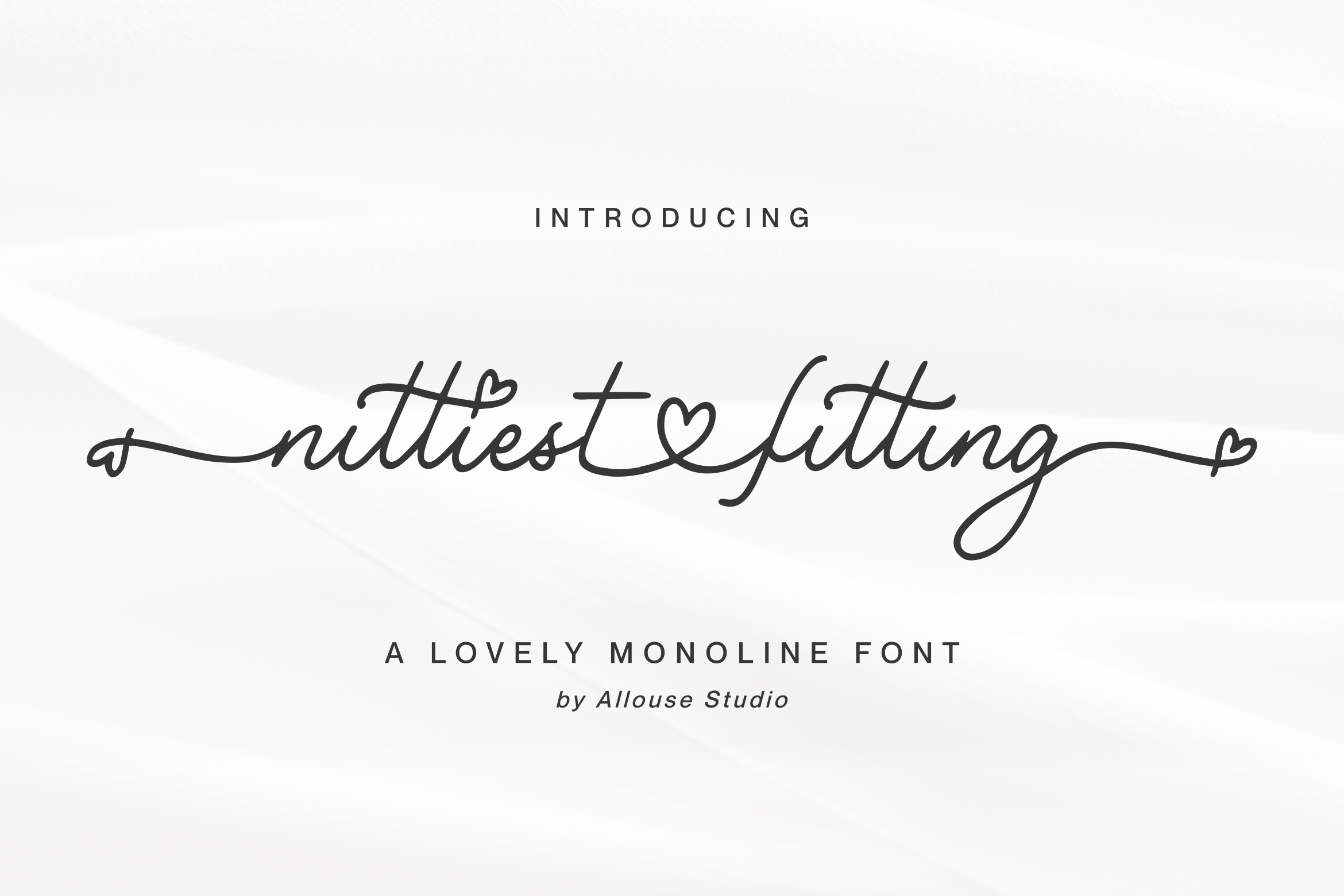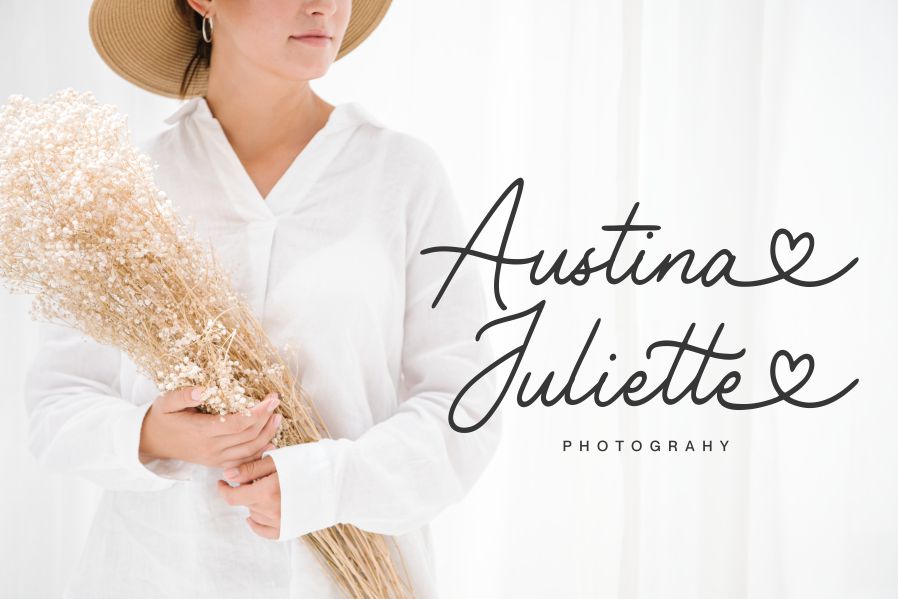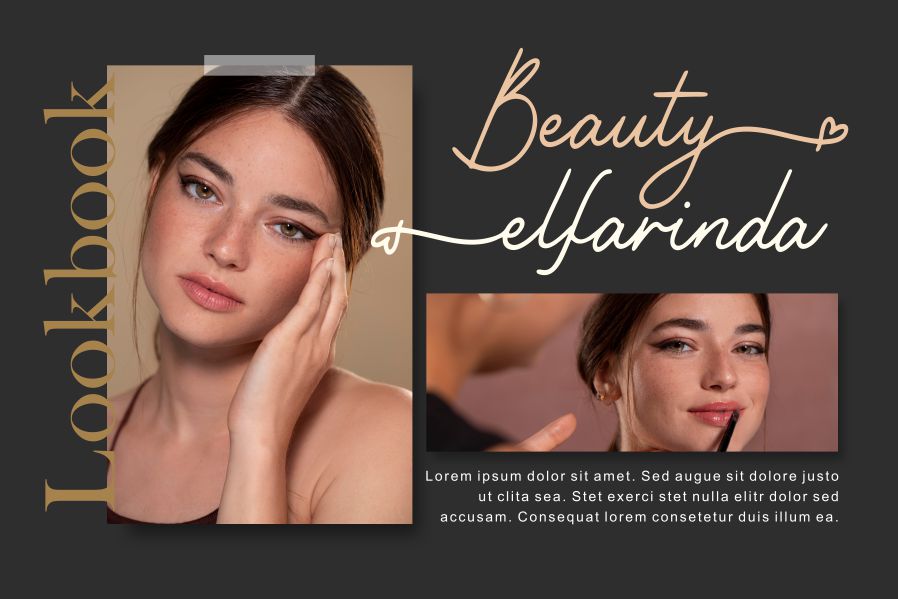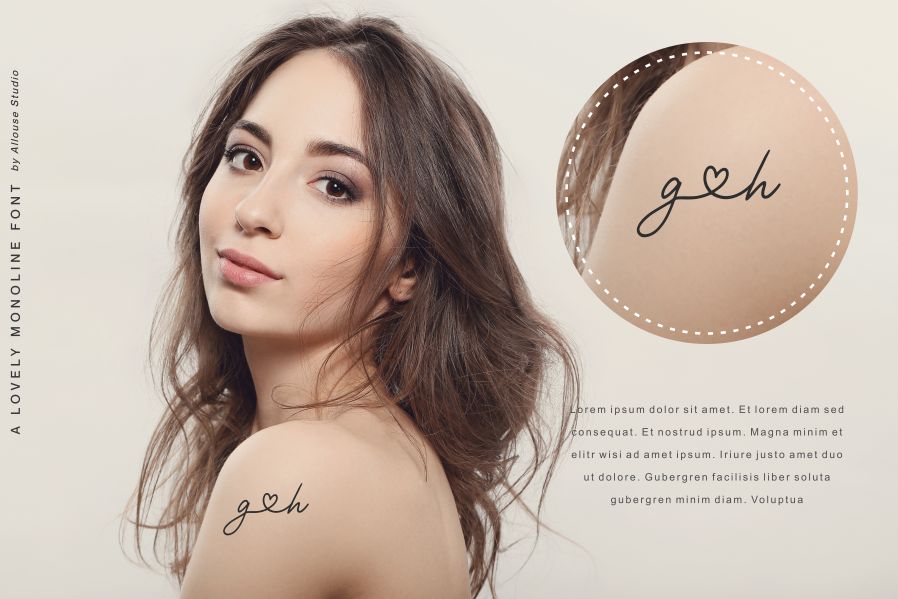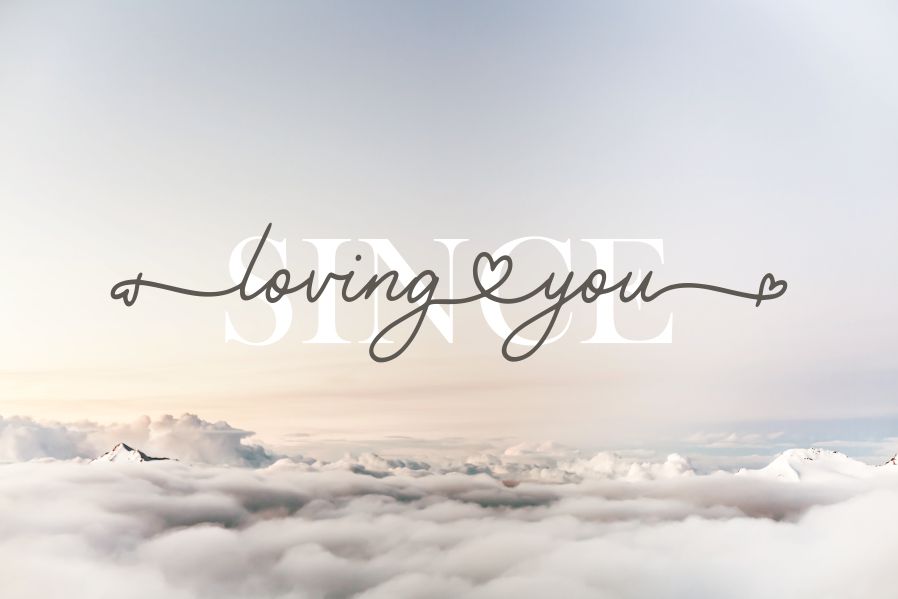
Nittiest Fitting Font
Nittiest Fitting Script Font
This font is perfect for any tittles, logo, product packaging, branding project, megazine, social media, wedding, or just used to express words above the background.
Nittiest Fitting come with lowercase beginning and ending bunny tail swash also Multi-Lingual Support.